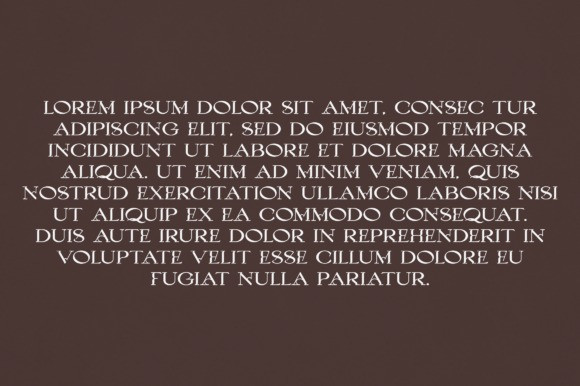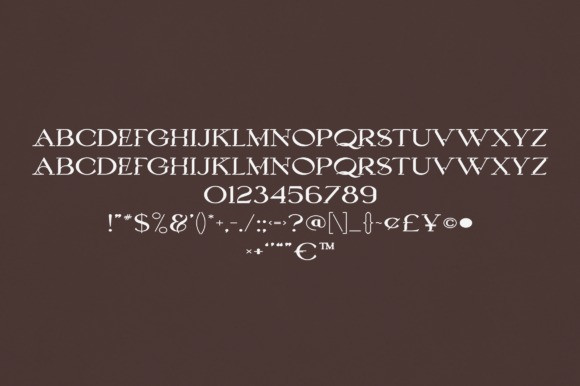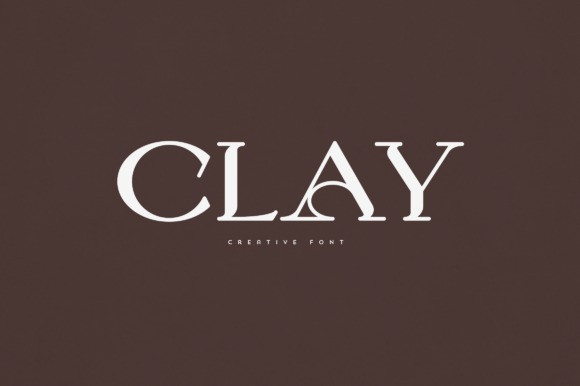
Clay Font
Clay Font is an elegant and versatile font that will make your typography truly unique! It will enchant every logo, branding, headline, or plain text!